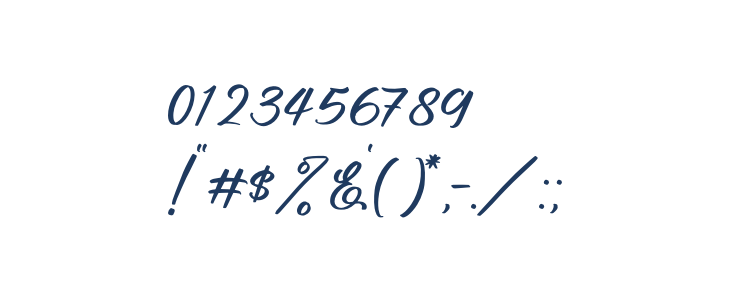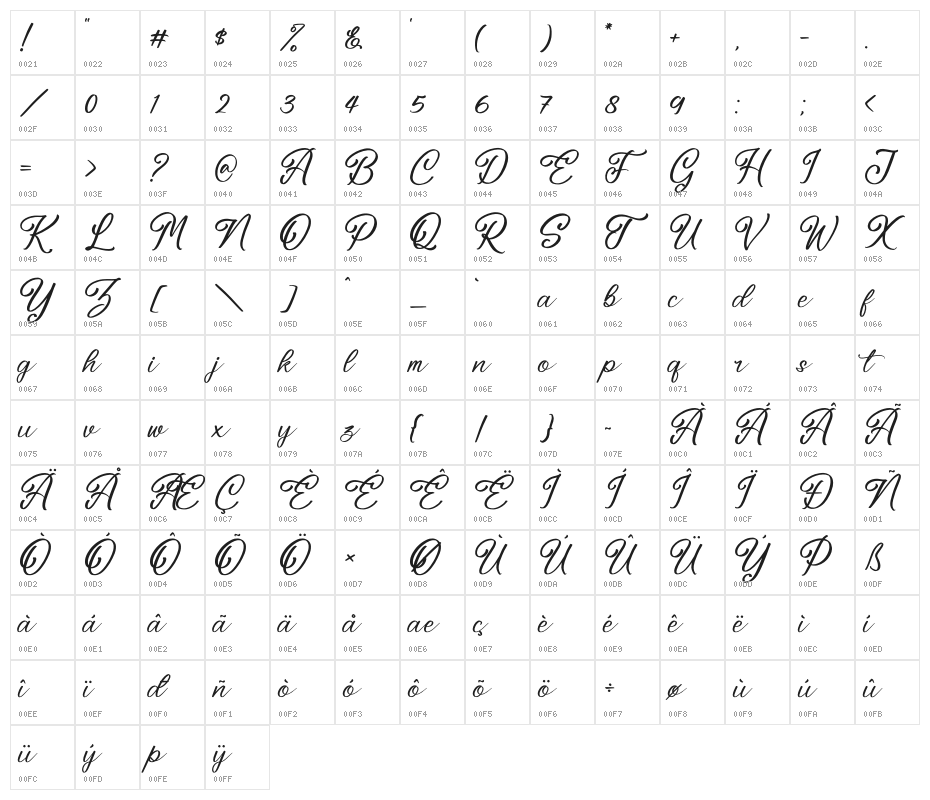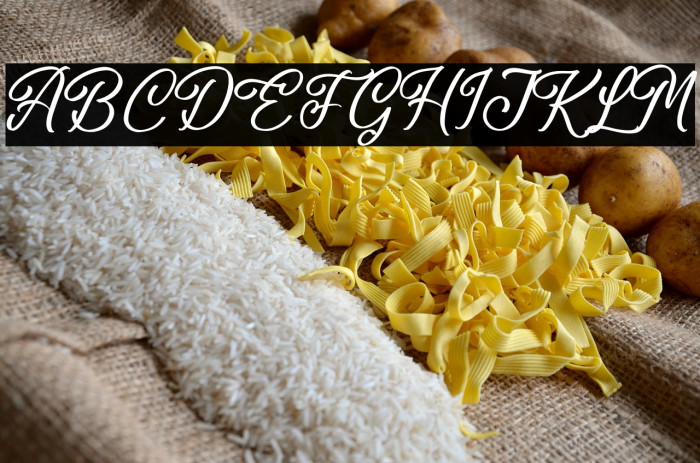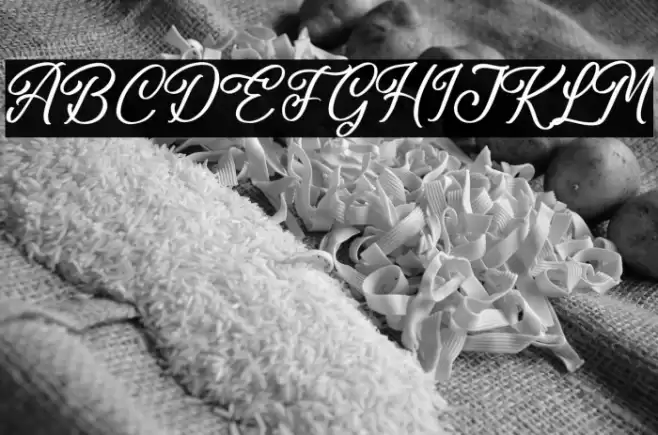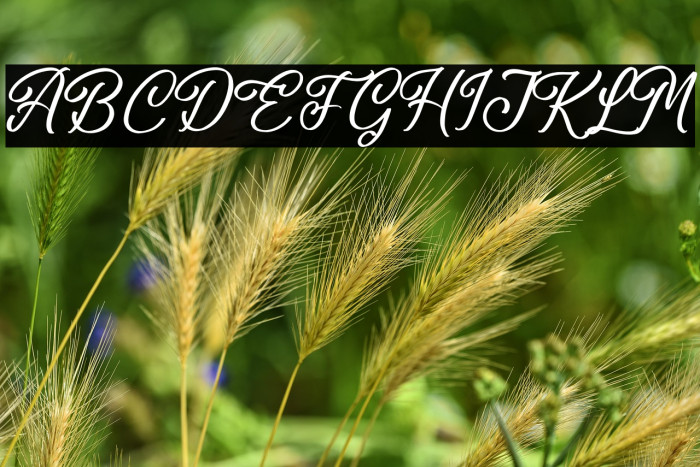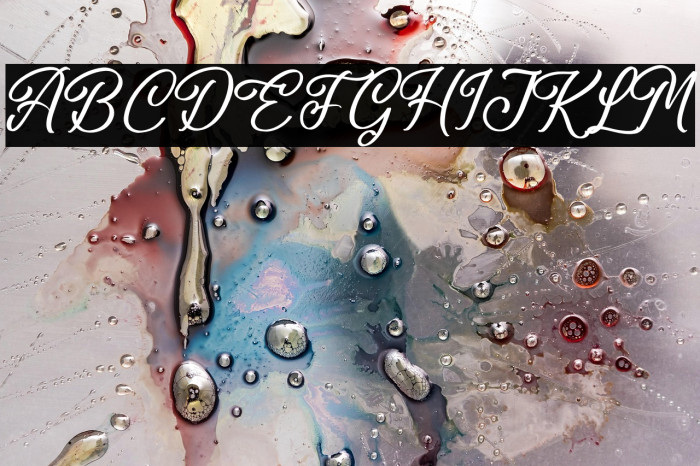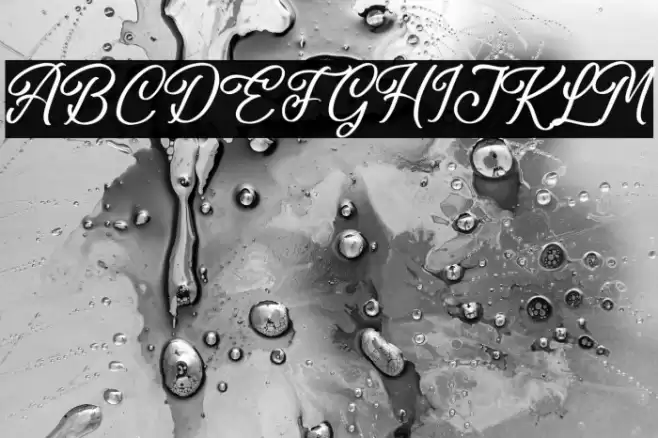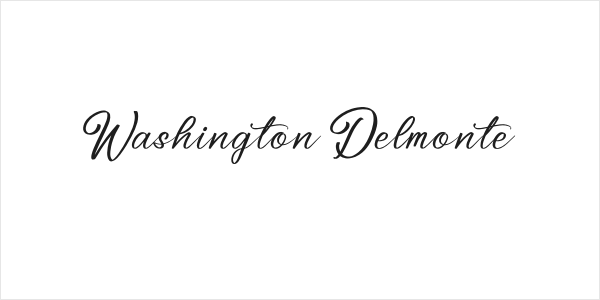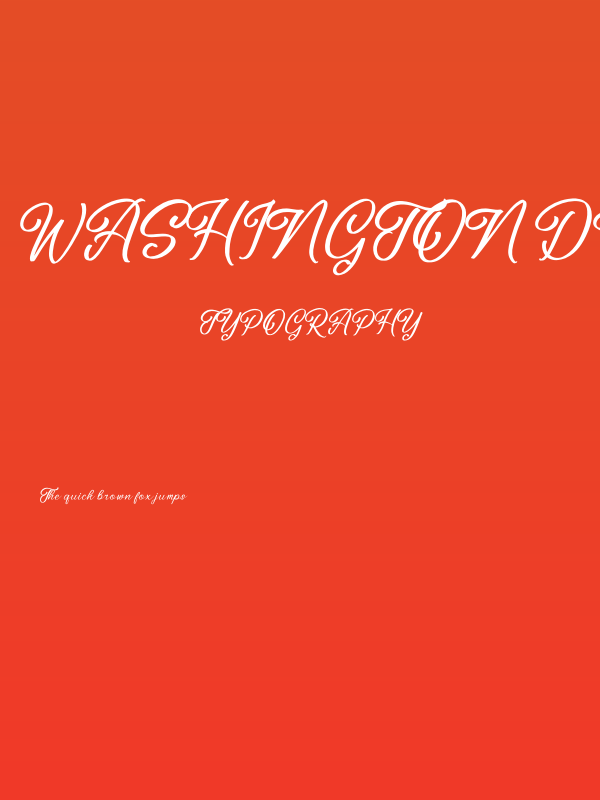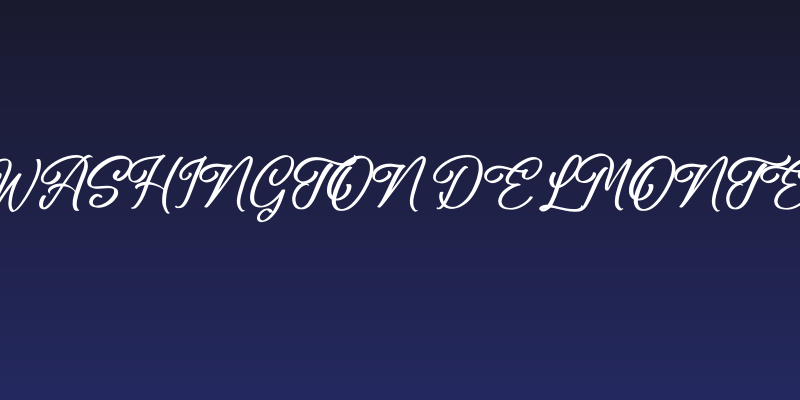
Washington Delmonte Font
Washington Delmonte Description
This elegant script font features flowing, cursive letterforms with a classic and sophisticated appearance. The uppercase letters are ornate and slightly larger than the lowercase, which are more restrained yet maintain a graceful flow. The numerals are distinct and maintain the script style, adding a touch of elegance to numerical expressions. The special characters are well-integrated, matching the overall aesthetic with smooth curves and stylish flourishes. This font exudes a sense of formality and refinement, making it suitable for upscale design projects.